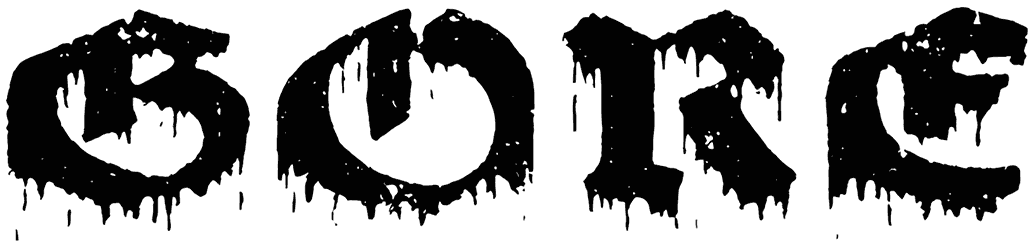
Gore Font
Designed byRingo Waterman
You can make a chilling title for your poster with this blood-dripping font. As a horror font, Gore represents a sinister and demonic face and conveys a dark vibe. Gore has no lowercase, numbers, or punctuation, and is limited to caps, but rest assured, it’s not going to show any weakness in displaying your words.